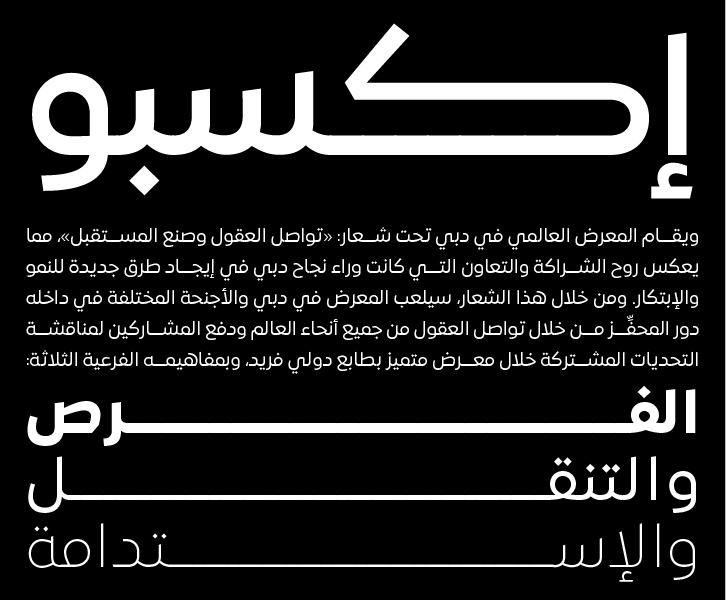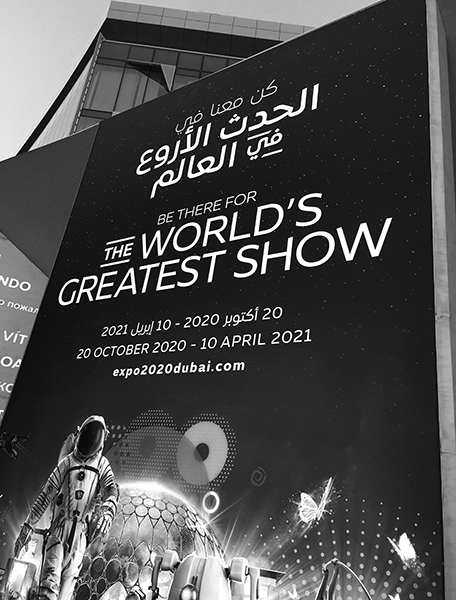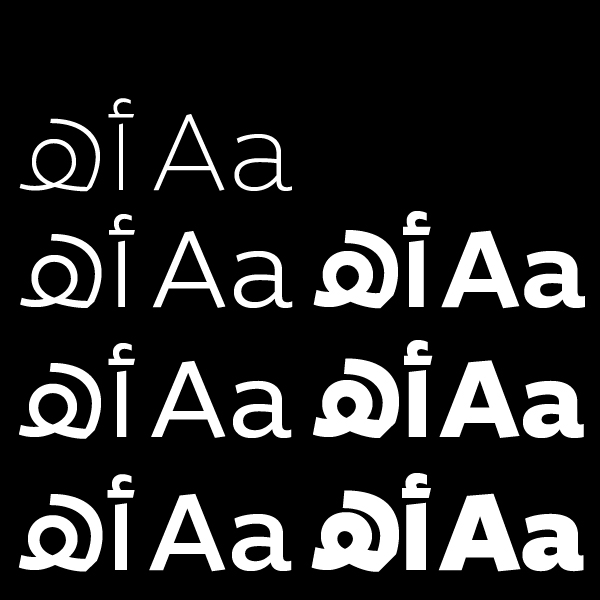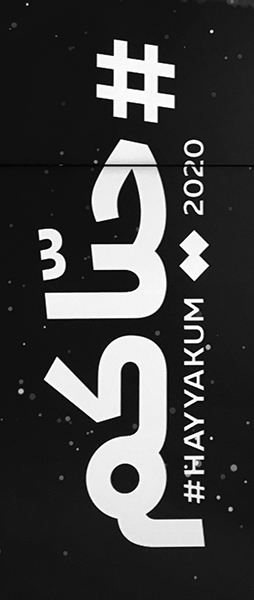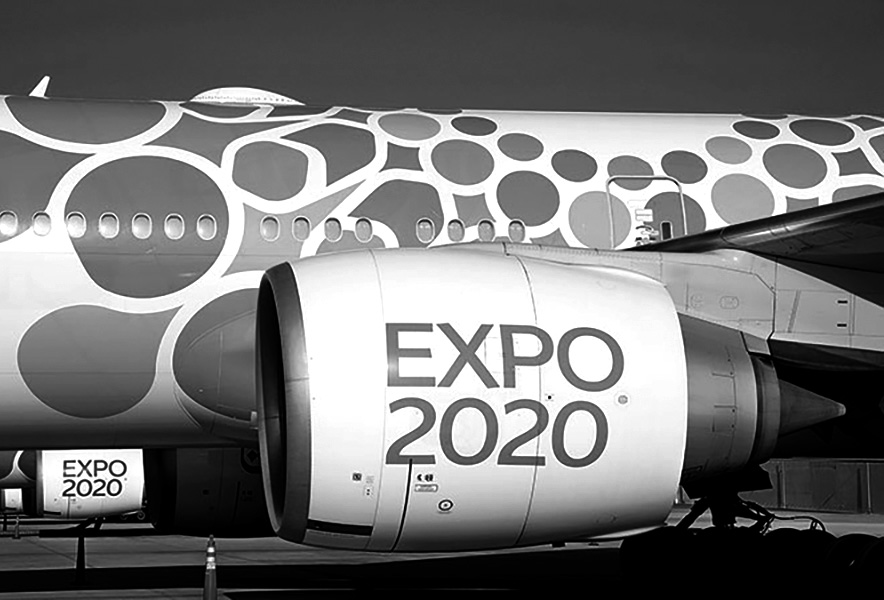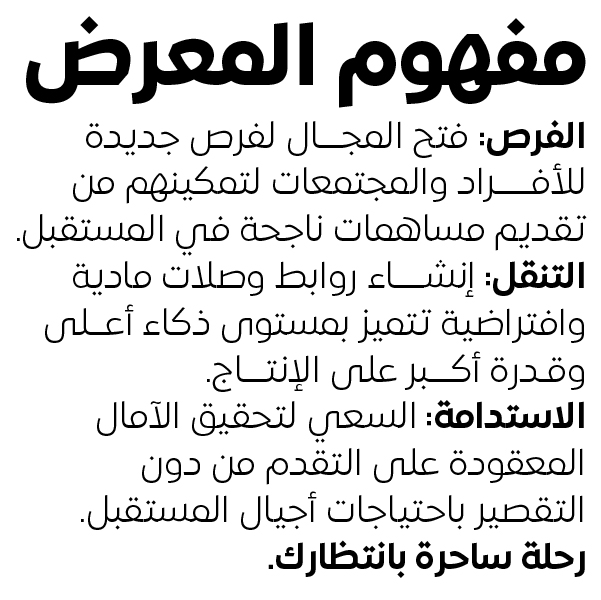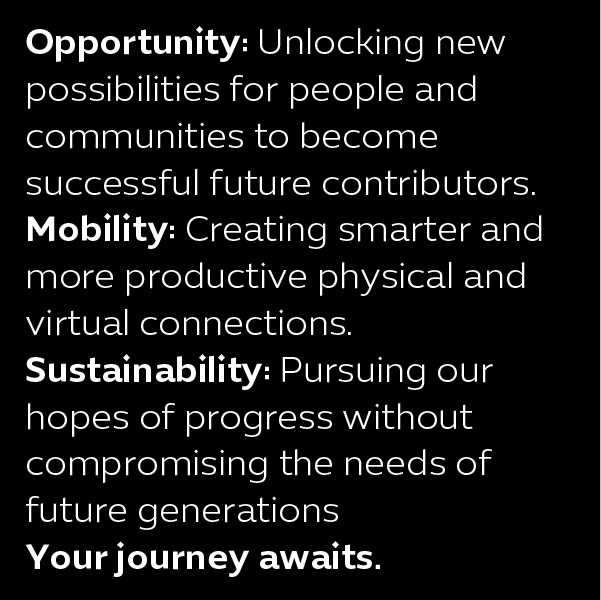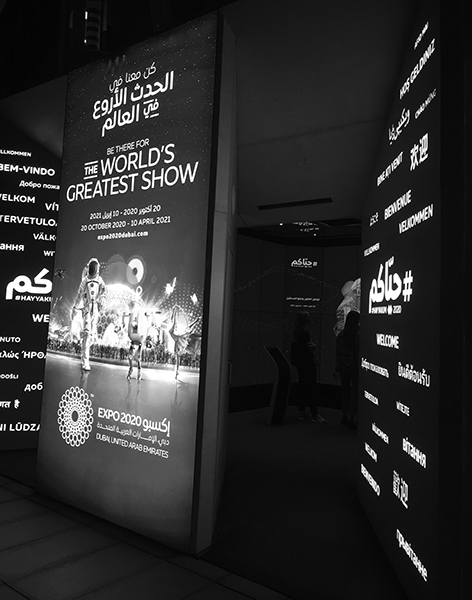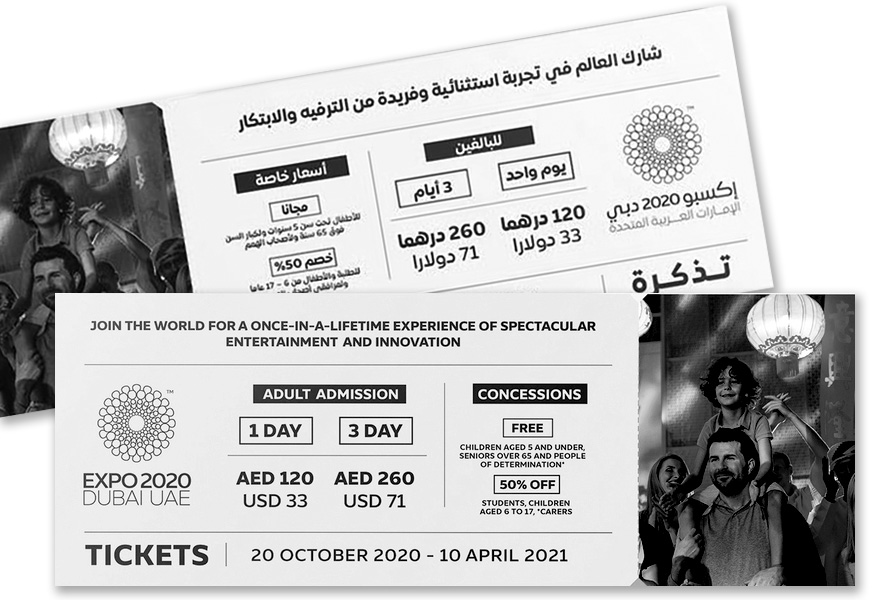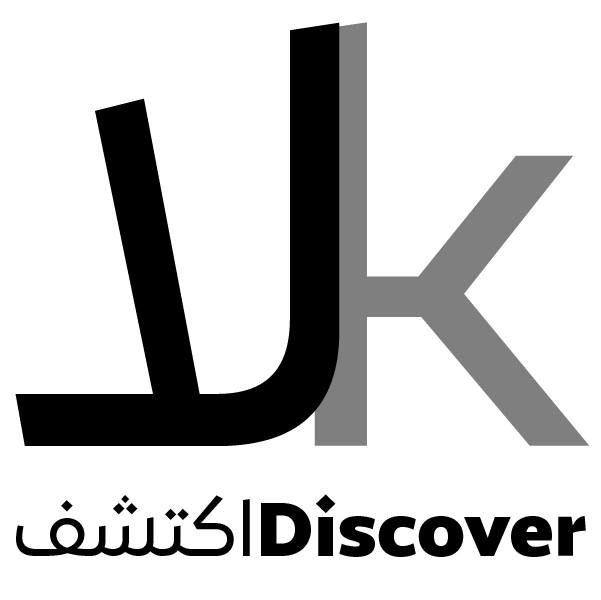
World Expo
Expo typeface is a bilingual Arabic and English set of fonts created by Dino dos Santos from DSType and Pascal Zoghbi. The Latin character set is designed by dos Santos while Zoghbi designed the Arabic. It is a contemporary typeface drawn with extreme refinement in seven weights (Thin, Light, Book, Medium, SemiBold, Bold and Black) answering the corporate identity of the event. A modern-day sans serif Latin and a simplified Neo-Naskh Arabic were drawn to echo the theme of the Expo: “Connecting Minds, Creating the Future”. A clear and open design approach of both scripts lends the fonts a feel of vibrancy and openness that speaks well to the anticipated 25 million cultural, business and corporate visitors to the event as well as the hundreds of businesses participating in the Expo.
The world Expo in Dubai aims to gather the global community in order to forge new partnerships and find solutions for cultural and business topics, ultimately leaving behind a strong transformative social and economic legacy across the Arab region and the world. The echoing design of both the Latin and the Arabic letter-forms aims to reflect this global partnership.
It is a type family created with maximum legibility and ease of usability mindset. The letterforms were drawn in a certain composition representing neutrality while retaining its connection to calligraphy. It is a humanistic typeface in searching for the essence of the Arabic and Latin typographic structures.
A number of elements bring both Arabic and Latin scripts together: the design approach, open counters, proportions, terminals and finials, weight and contrast. Both scripts were created in synergy and were inspired by each other simultaneously. Both dos Santos and Zoghbi didn’t want to sacrifice the value or aesthetics of one script to the other, hence they approached the same design brief of an adequate typeface from the different aspects of the Arabic and Latin scripts.